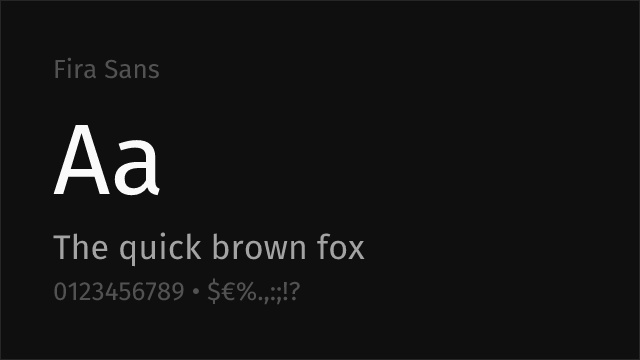
Free Alternatives to TheSans for Wayfinding
Looking for a free sans serif font for wayfinding projects? TheSans by LucasFonts is a popular choice, but its licensing cost can be prohibitive. We've curated 3 free alternatives that work well in wayfinding contexts. We've identified 2 that are especially well-suited for this context. Each alternative is scored by visual similarity and contextual relevance, and ships under an open-source license for both personal and commercial use.
Excellent professional humanist alternative
Versatile option for corporate applications
Humanist sans with comprehensive language support